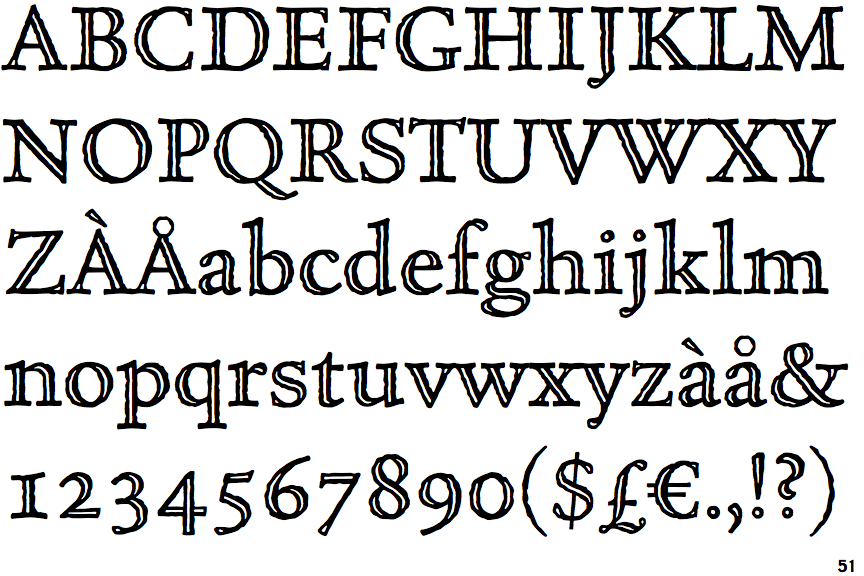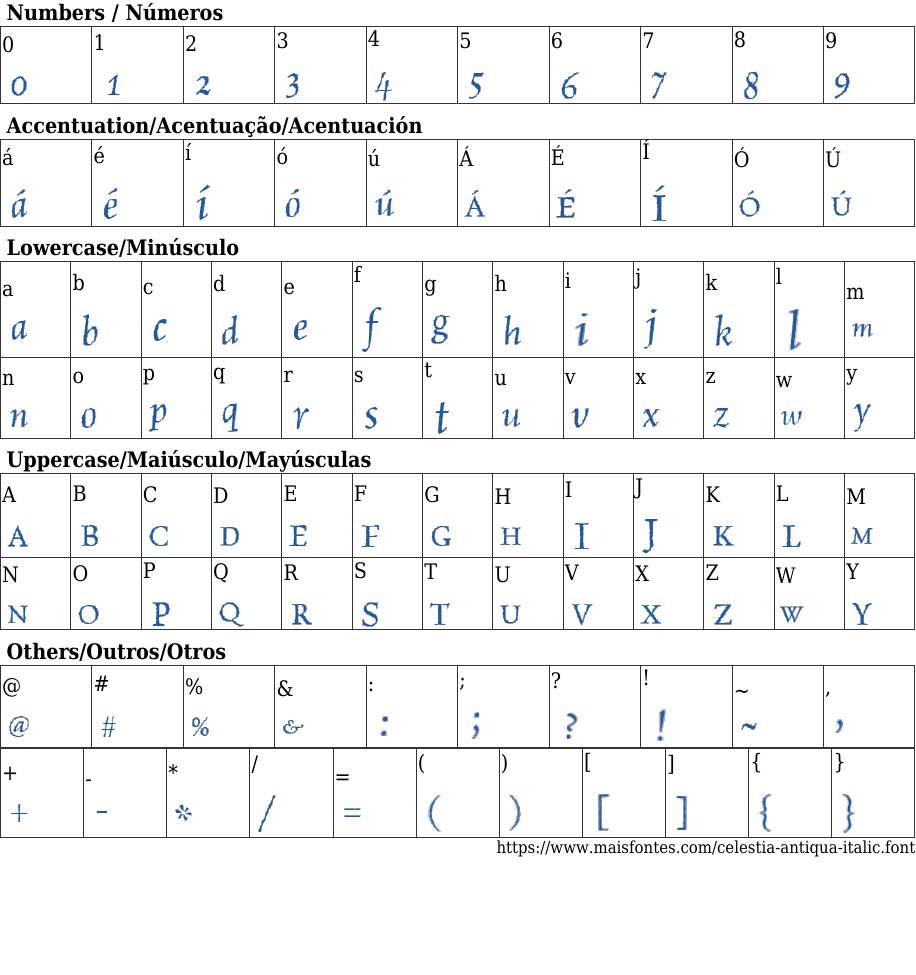
Mark van bronkhorst designed mvb celestia antiqua at a time when font choice was limited. Designer mark van bronkhorst 1993, 1996. Web be aware that the celestia antiqua font is free for personal knowledge and use only.
MVB Celestia Antiqua
Fonts are available in truetype,. Font format opentype for mac & windows. Web mvb celestia antiqua font: Web mvb celestia antiqua holds its own among a large group of other “weathered” serif fonts, in part due to the size of the family:
Celestia Antiqua Font - Web be aware that the celestia antiqua font is free for personal knowledge and use only. Web mvb celestia antiqua holds its own among a large group of other “weathered” serif fonts, in part due to the size of the family: Designer mark van bronkhorst 1993, 1996. Font format opentype for mac & windows. Mark van bronkhorst designed mvb celestia.
Celestia Antiqua Font - Web mvb celestia antiqua holds its own among a large group of other “weathered” serif fonts, in part due to the size of the family: Web mvb celestia antiqua font: Fonts are available in truetype,. Designer mark van bronkhorst 1993, 1996. Mark van bronkhorst designed mvb celestia antiqua at a time when font choice was limited.
Celestia Antiqua Font - Mark van bronkhorst designed mvb celestia antiqua at a time when font choice was limited. Web mvb celestia antiqua holds its own among a large group of other “weathered” serif fonts, in part due to the size of the family: Web be aware that the celestia antiqua font is free for personal knowledge and use only. Font format opentype for.
Celestia Antiqua Font - Designer mark van bronkhorst 1993, 1996. Web be aware that the celestia antiqua font is free for personal knowledge and use only. Mark van bronkhorst designed mvb celestia antiqua at a time when font choice was limited. Web mvb celestia antiqua font: Fonts are available in truetype,.
Celestia Antiqua Font - Fonts are available in truetype,. Mark van bronkhorst designed mvb celestia antiqua at a time when font choice was limited. Web mvb celestia antiqua holds its own among a large group of other “weathered” serif fonts, in part due to the size of the family: Web be aware that the celestia antiqua font is free for personal knowledge and use.
Celestia Antiqua Font - Font format opentype for mac & windows. Mark van bronkhorst designed mvb celestia antiqua at a time when font choice was limited. Web mvb celestia antiqua holds its own among a large group of other “weathered” serif fonts, in part due to the size of the family: Web mvb celestia antiqua font: Designer mark van bronkhorst 1993, 1996.
Celestia Antiqua Font - Mark van bronkhorst designed mvb celestia antiqua at a time when font choice was limited. Fonts are available in truetype,. Web be aware that the celestia antiqua font is free for personal knowledge and use only. Web mvb celestia antiqua font: Web mvb celestia antiqua holds its own among a large group of other “weathered” serif fonts, in part due.
Celestia Antiqua Font - Web mvb celestia antiqua holds its own among a large group of other “weathered” serif fonts, in part due to the size of the family: Font format opentype for mac & windows. Web mvb celestia antiqua font: Designer mark van bronkhorst 1993, 1996. Mark van bronkhorst designed mvb celestia antiqua at a time when font choice was limited.
Celestia Antiqua Font - Font format opentype for mac & windows. Mark van bronkhorst designed mvb celestia antiqua at a time when font choice was limited. Web mvb celestia antiqua font: Designer mark van bronkhorst 1993, 1996. Web mvb celestia antiqua holds its own among a large group of other “weathered” serif fonts, in part due to the size of the family:
Celestia Antiqua Font - Web mvb celestia antiqua font: Designer mark van bronkhorst 1993, 1996. Web be aware that the celestia antiqua font is free for personal knowledge and use only. Web mvb celestia antiqua holds its own among a large group of other “weathered” serif fonts, in part due to the size of the family: Mark van bronkhorst designed mvb celestia antiqua at.
Celestia Antiqua Font - Fonts are available in truetype,. Web mvb celestia antiqua font: Mark van bronkhorst designed mvb celestia antiqua at a time when font choice was limited. Web mvb celestia antiqua holds its own among a large group of other “weathered” serif fonts, in part due to the size of the family: Web be aware that the celestia antiqua font is free.
Celestia Antiqua Font - Fonts are available in truetype,. Mark van bronkhorst designed mvb celestia antiqua at a time when font choice was limited. Font format opentype for mac & windows. Web mvb celestia antiqua font: Web mvb celestia antiqua holds its own among a large group of other “weathered” serif fonts, in part due to the size of the family:
Celestia Antiqua Font - Designer mark van bronkhorst 1993, 1996. Fonts are available in truetype,. Font format opentype for mac & windows. Web mvb celestia antiqua font: Web be aware that the celestia antiqua font is free for personal knowledge and use only.